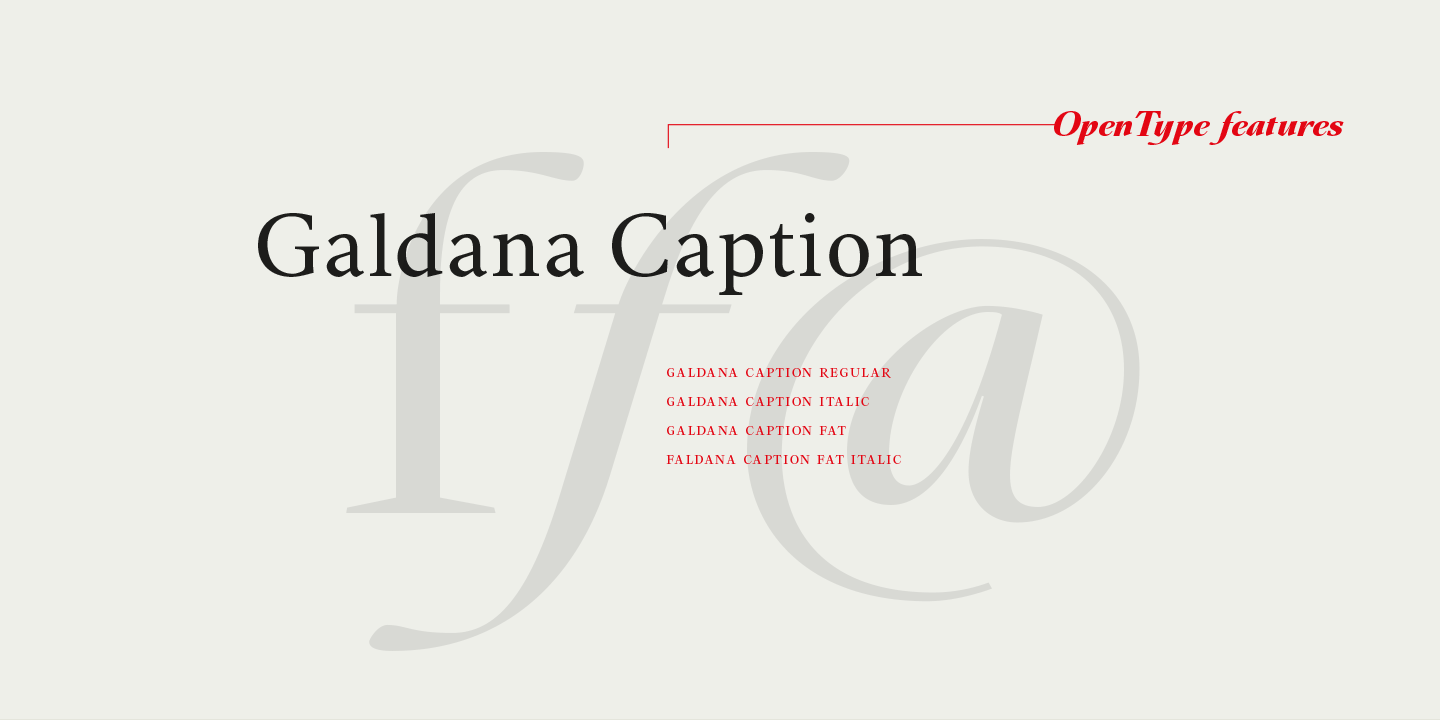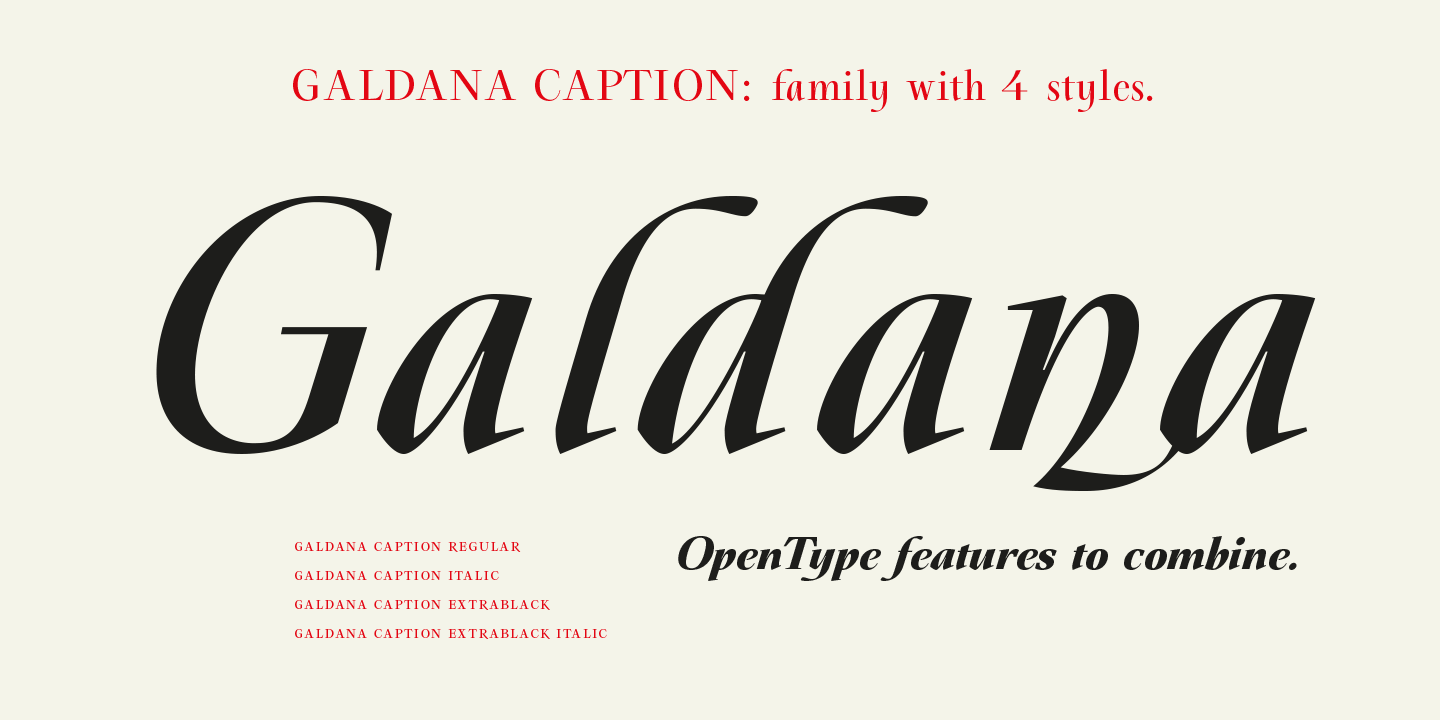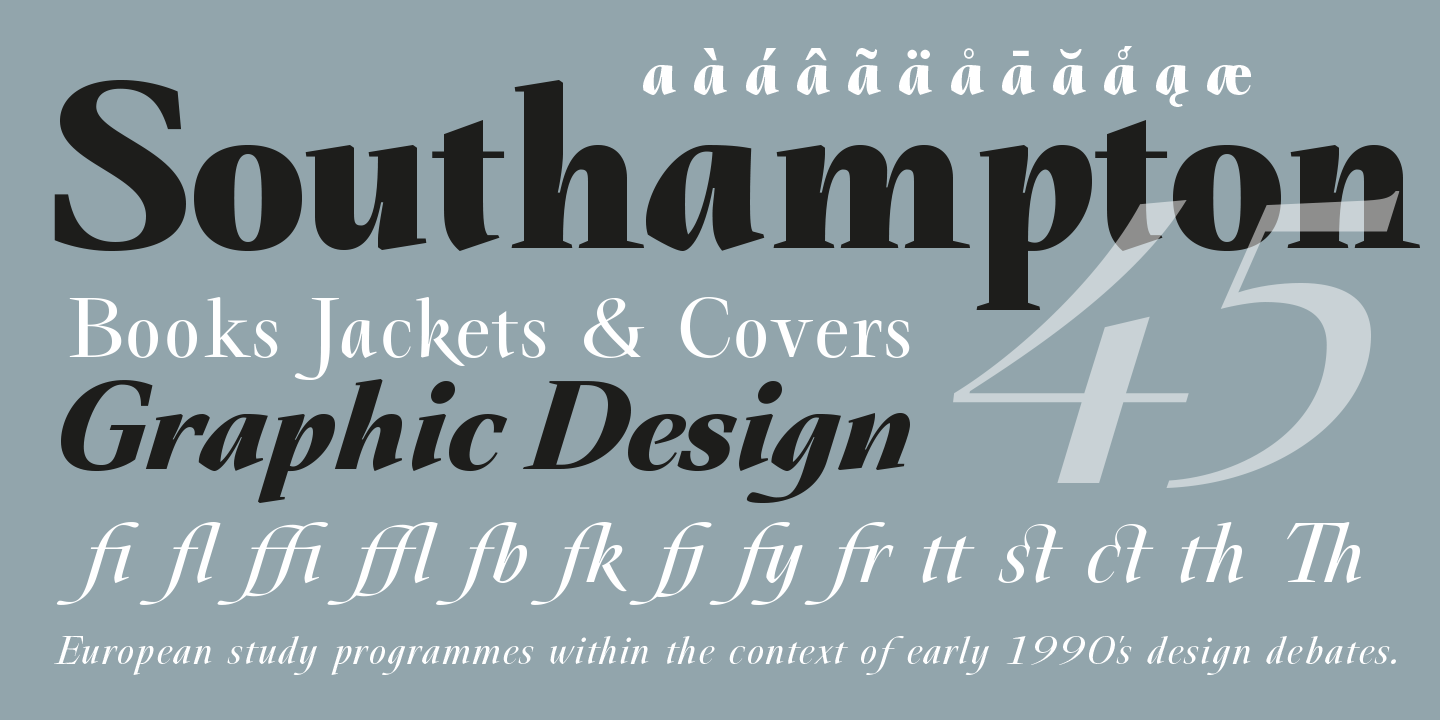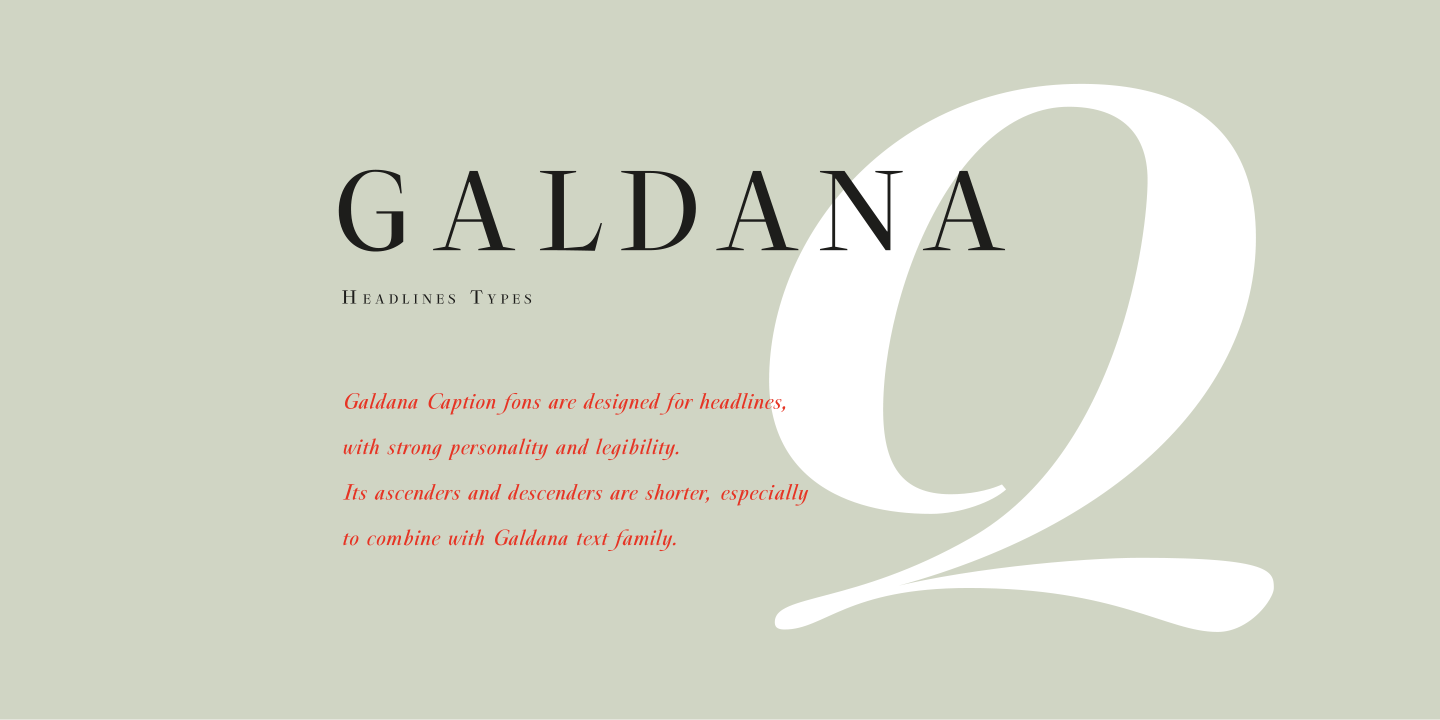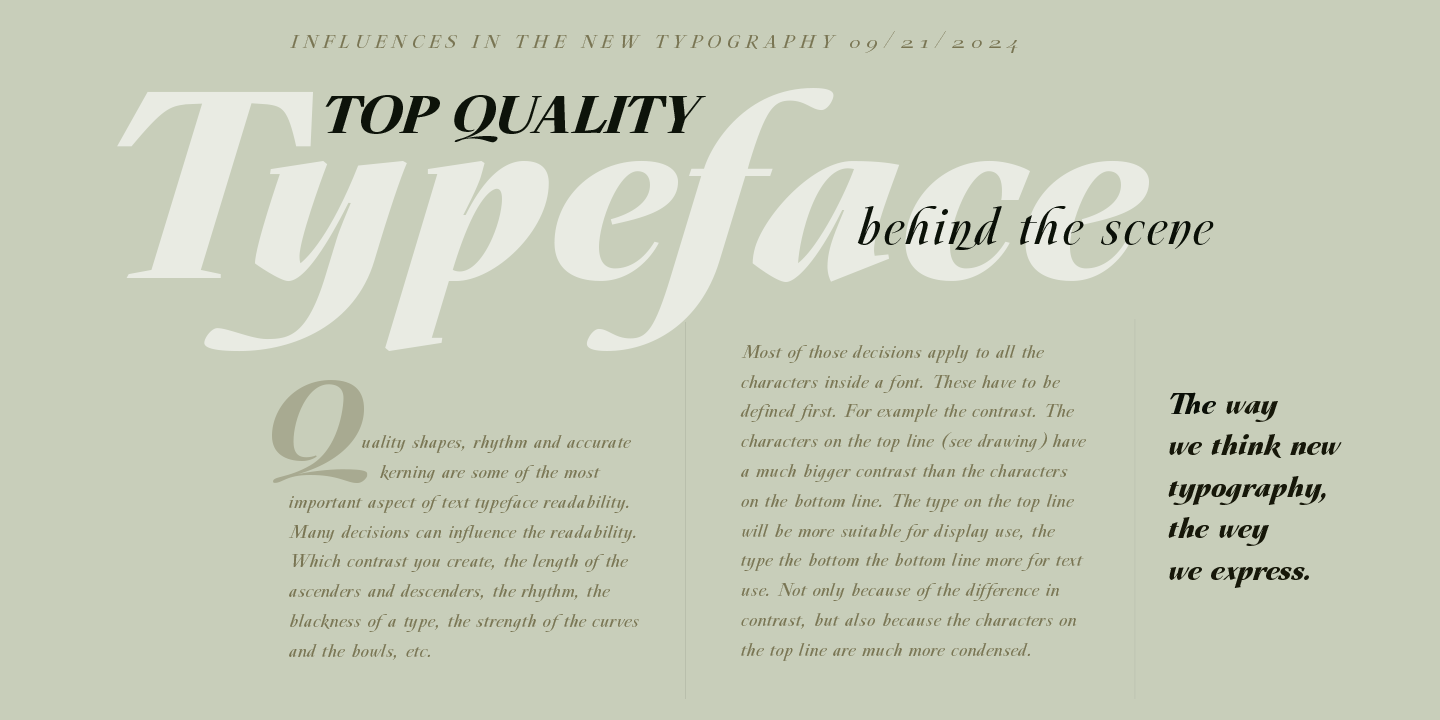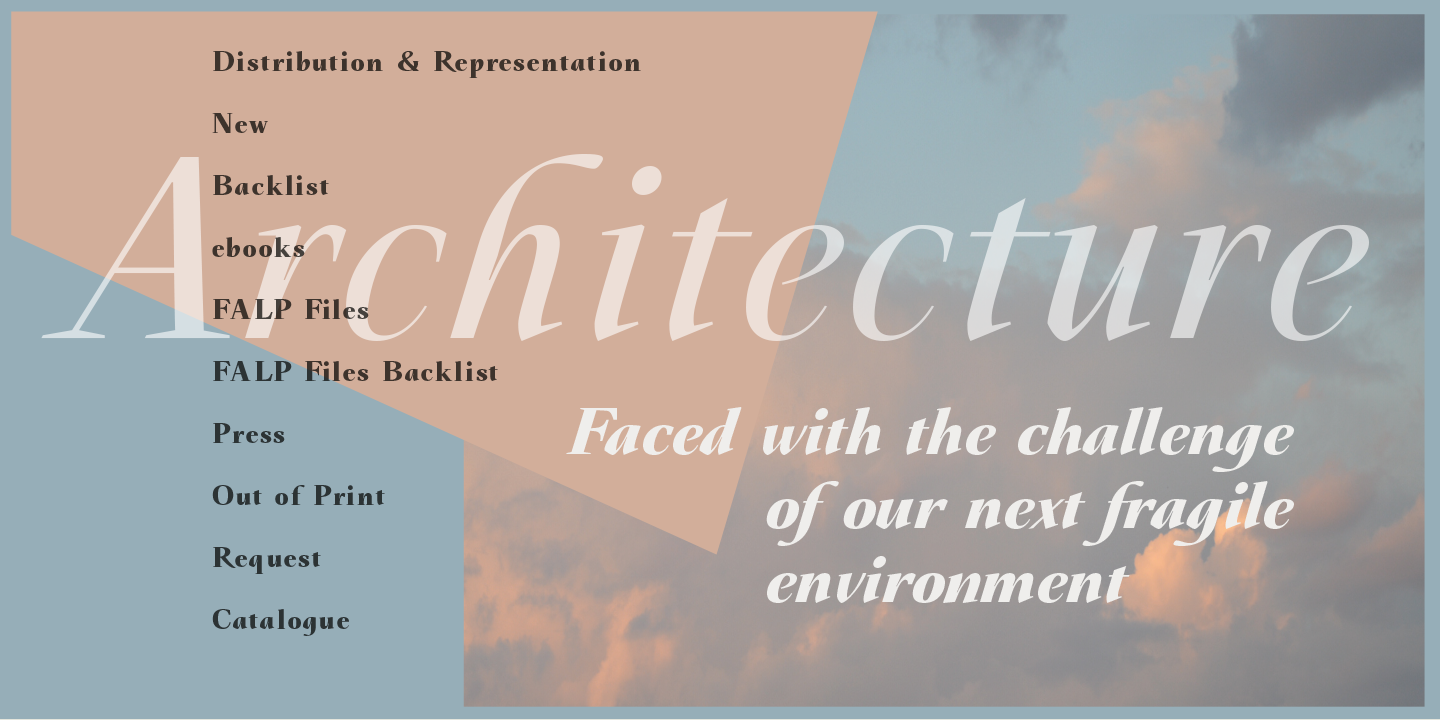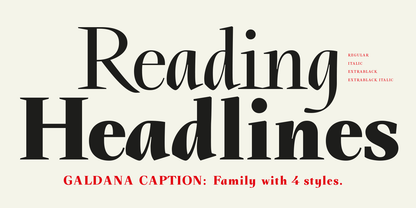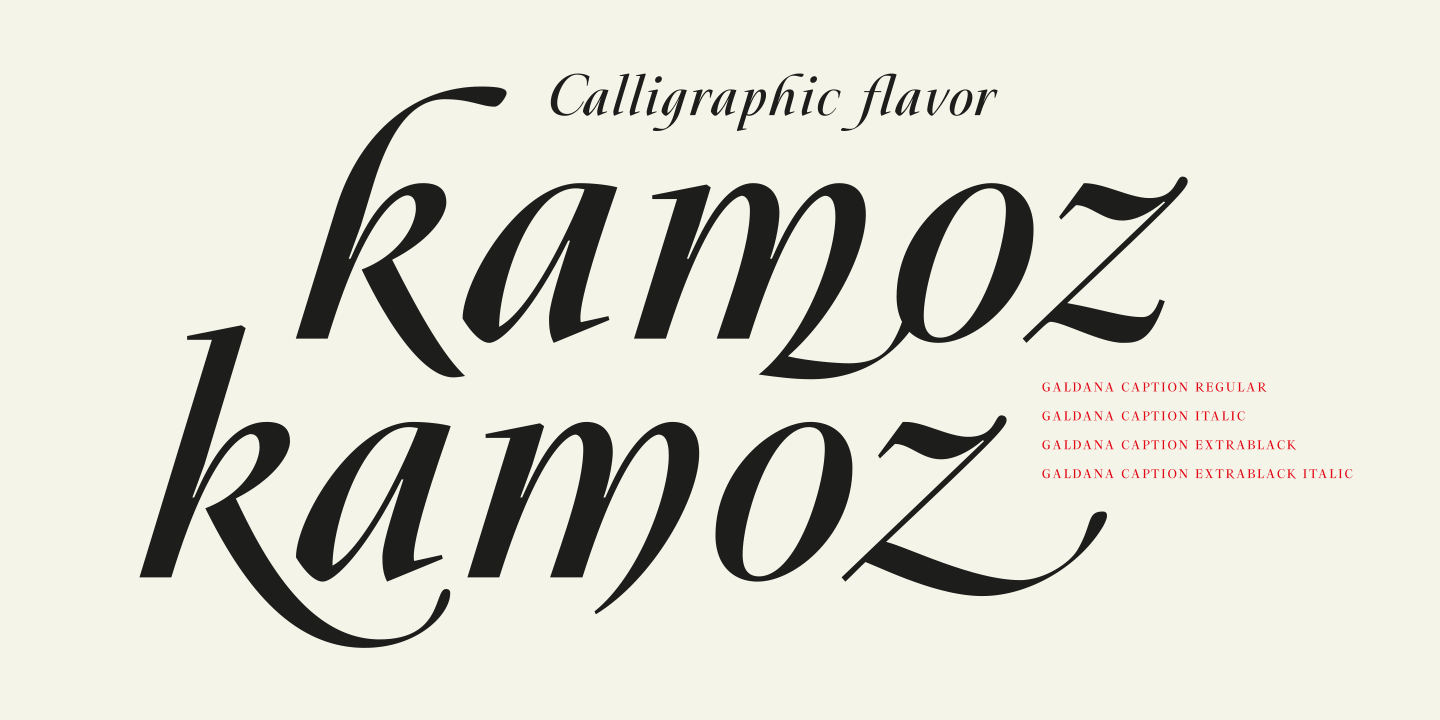
Galdana Caption
Galdana Caption is a Roman serif type family distinguished by its expressive and unmistakable true italic, featuring a bold 17-degree slant that gives the typeface a strong sense of movement and personality. This defining characteristic sets Galdana apart from conventional serif families and brings a vibrant, calligraphic energy to both editorial and display typography. The design is inspired by the work of Oscar Ogg, one of the most influential American calligraphers and book designers of the twentieth century, whose legacy is reflected in the typeface’s refined rhythm and elegant stroke modulation.
Galdana Caption is fully equipped for professional typography, featuring extensive multilingual support and a rich set of OpenType features. Designers can take advantage of stylistic alternates, swashes, and ligatures to enhance typographic expression and create distinctive, high-quality layouts with ease.
The family, Galdana Caption is a specialized subfamily designed for headlines, lead text, and primary typographic roles, as well as for seamless combination with Galdana Text. The Caption family includes four styles: Regular, Italic, Fat, and Fat Italic. Its italics preserve the signature 17-degree slant, combined with shorter ascenders and descenders, delivering a compact structure and a dynamic calligraphic flavor ideal for display use and tighter layouts.